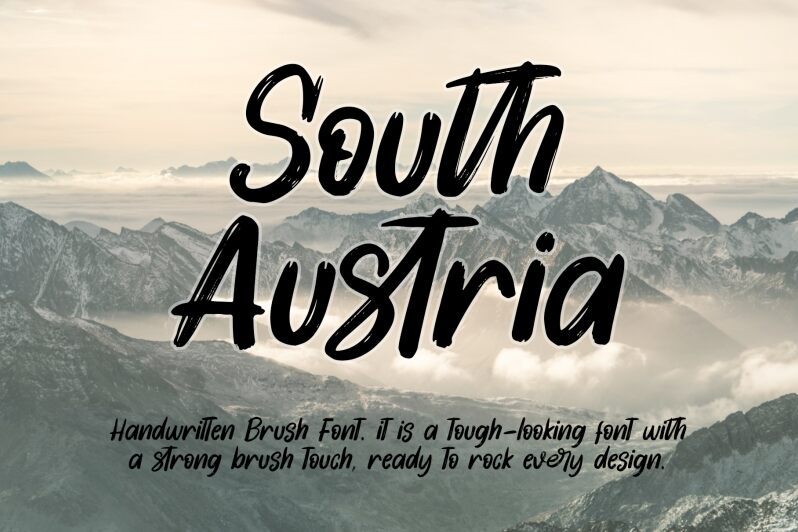
South Austria - Personal Use Italic
South Austria Italic is a smooth, brush-inspired font that exudes a sense of elegance and sophistication. Crafted by designer Annisa Afni, this font from the South Austria family captivates with its fluid strokes and effortless charm. The graceful curves and subtle variations in line thickness create a visually appealing aesthetic, evoking feelings of sophistication and refinement.
South Austria Italic's versatility makes it a versatile choice for a wide range of design applications, from high-end branding and editorial layouts to captivating invitations and eye-catching social media graphics. Its smooth and polished appearance lends itself well to projects that require a touch of luxury and exclusivity, while its legibility ensures clear communication across various mediums.